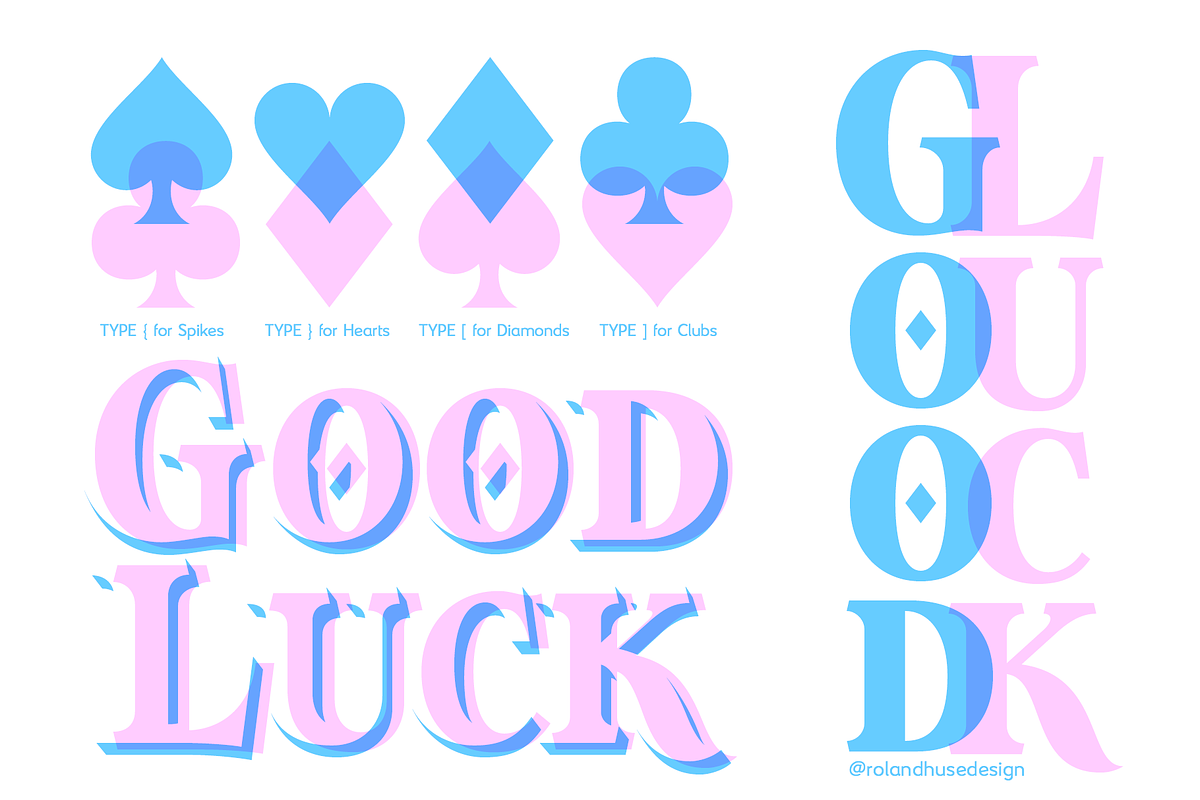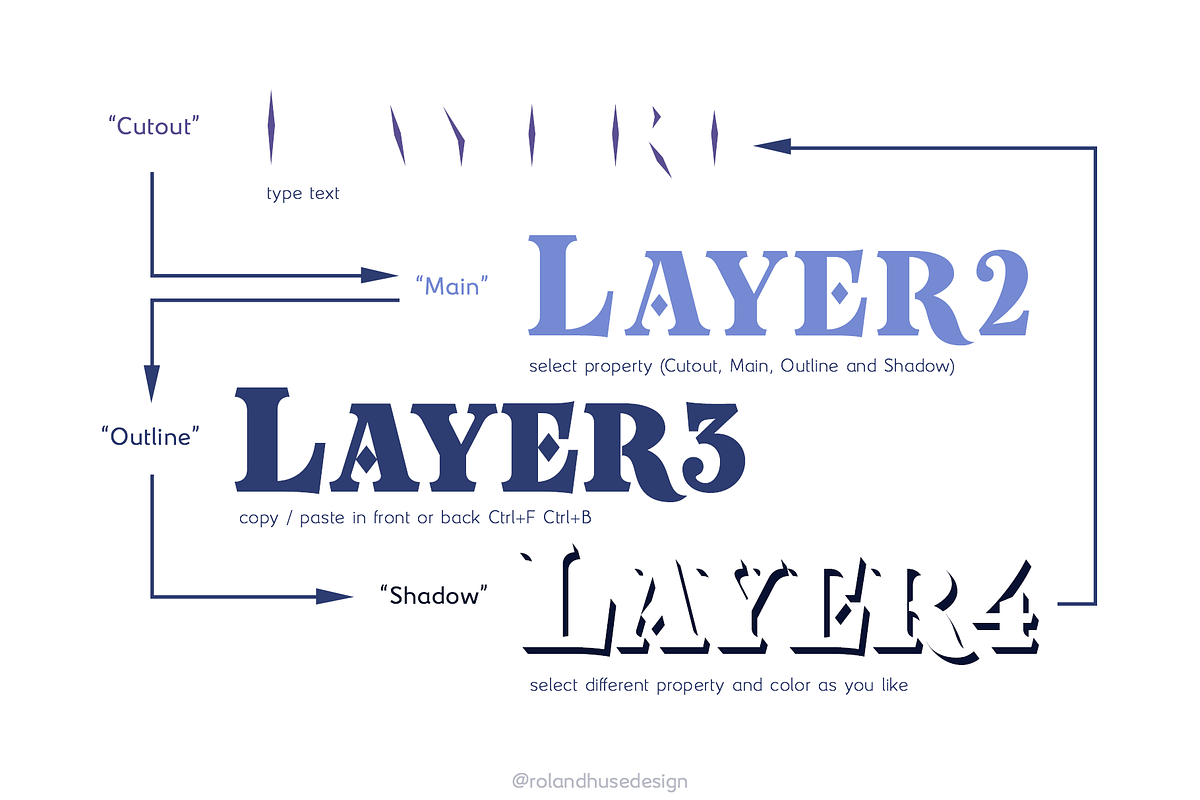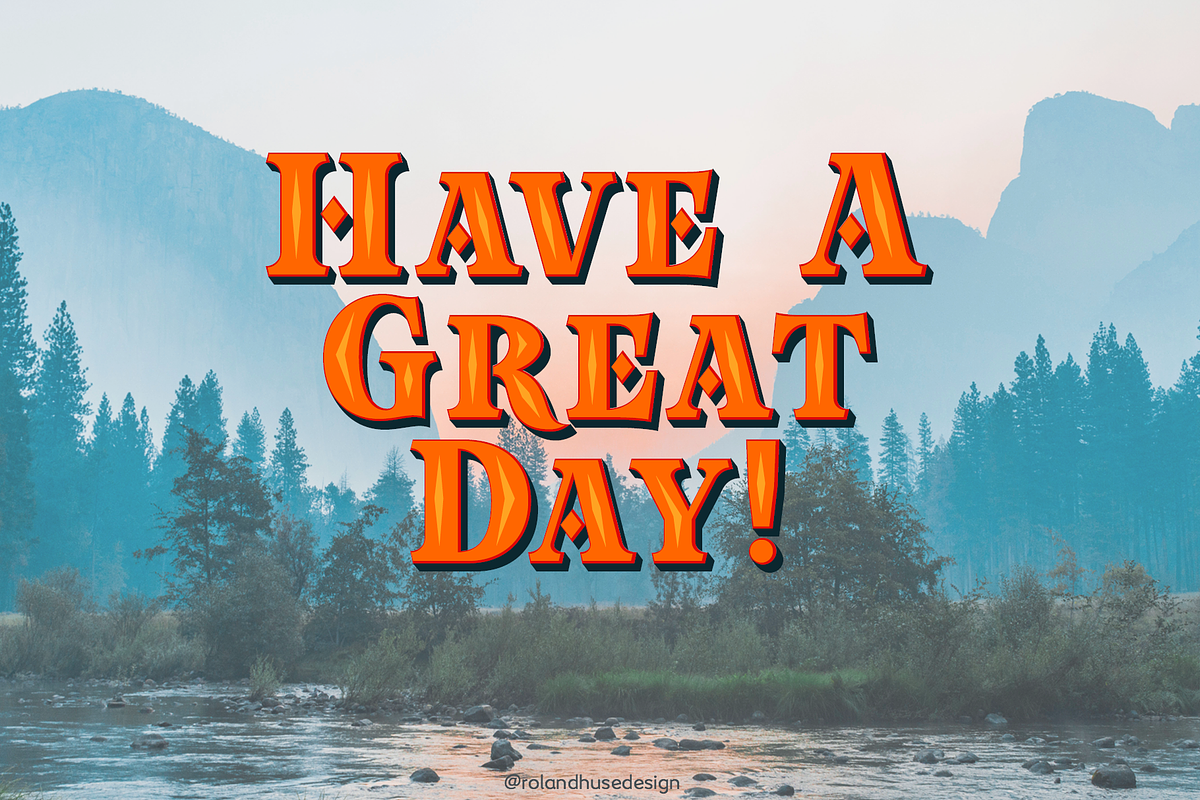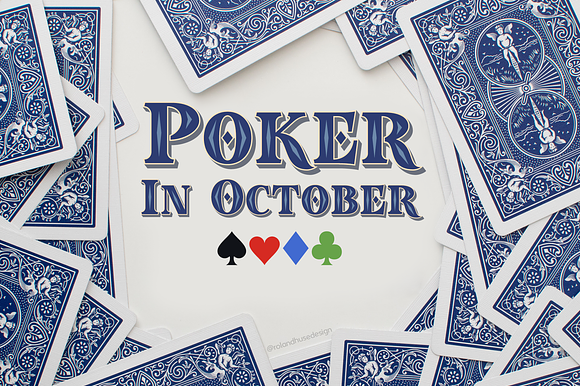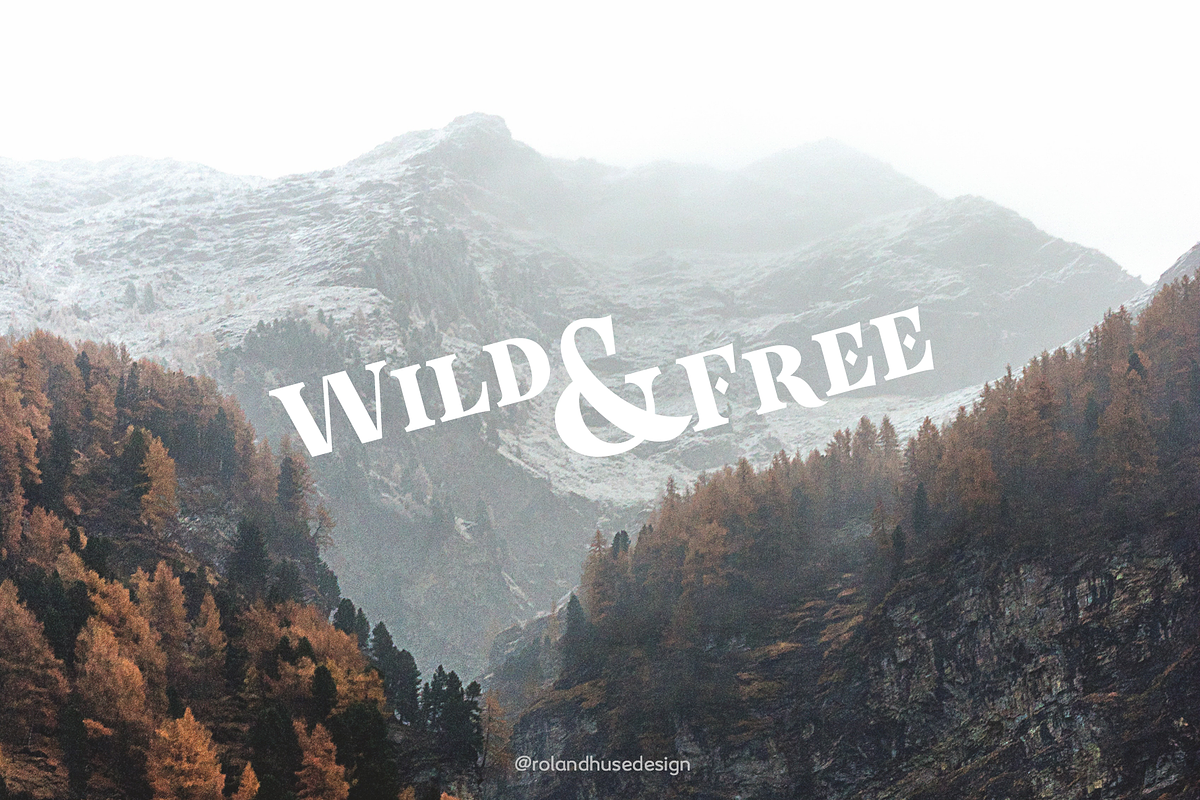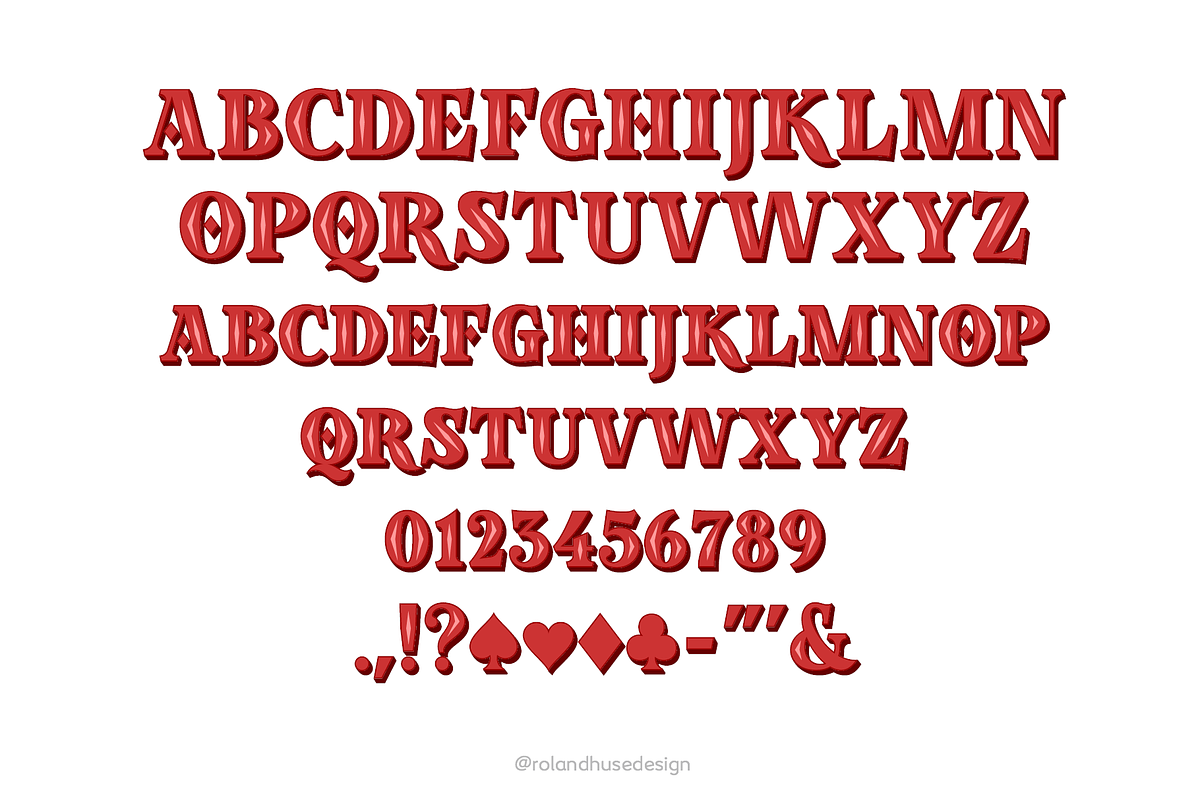
Poker In October Layered Color Font
POKER IN OCTOBER is a layered All Caps color font.
Please note that this is primarily for headlines, logos posters in large size so there are no characters included that might be required in a body copy.